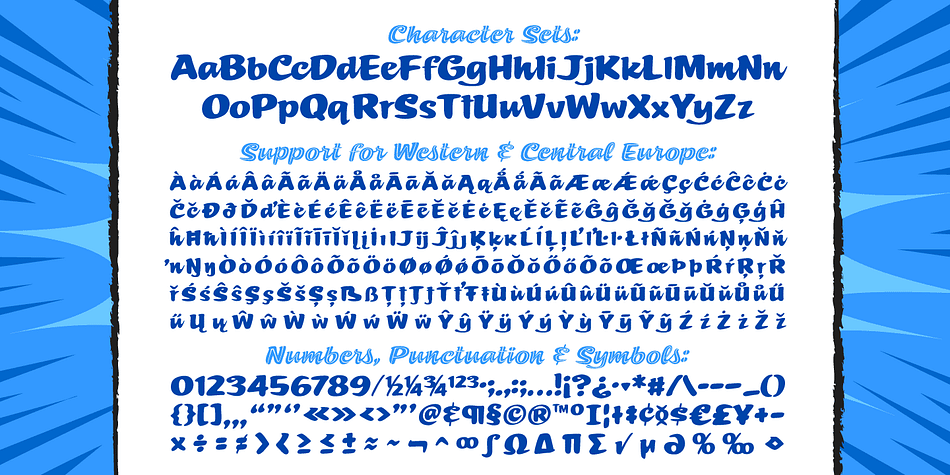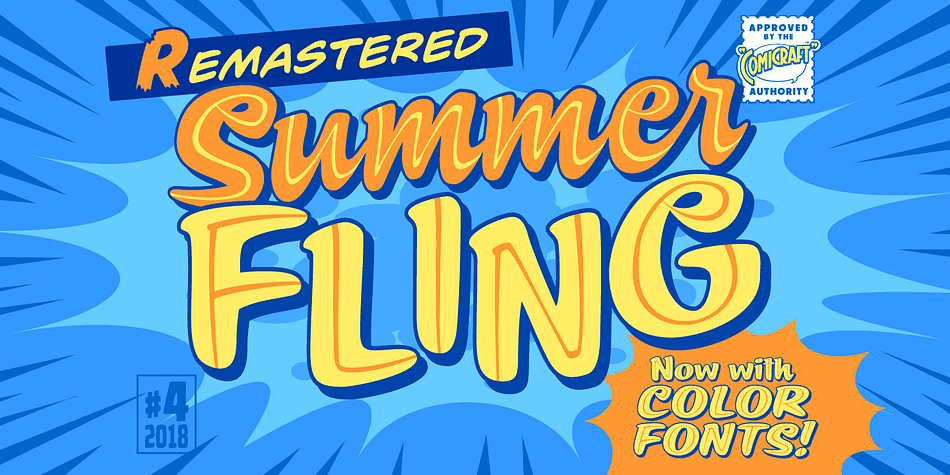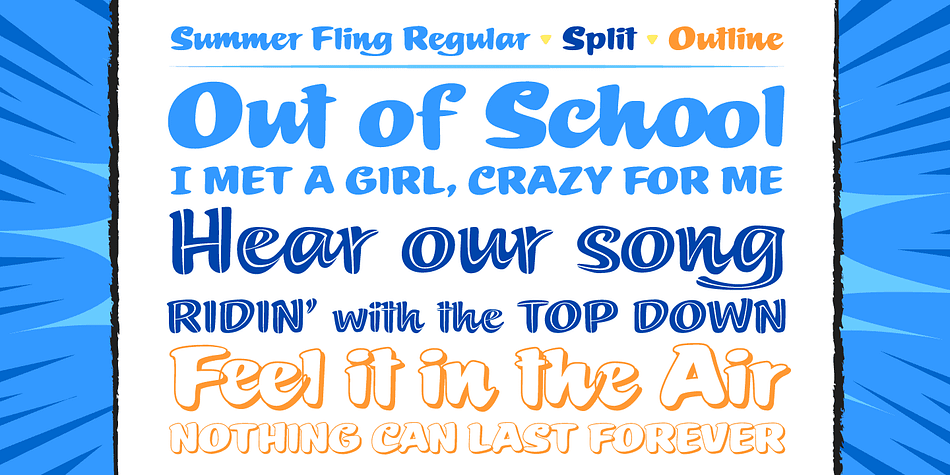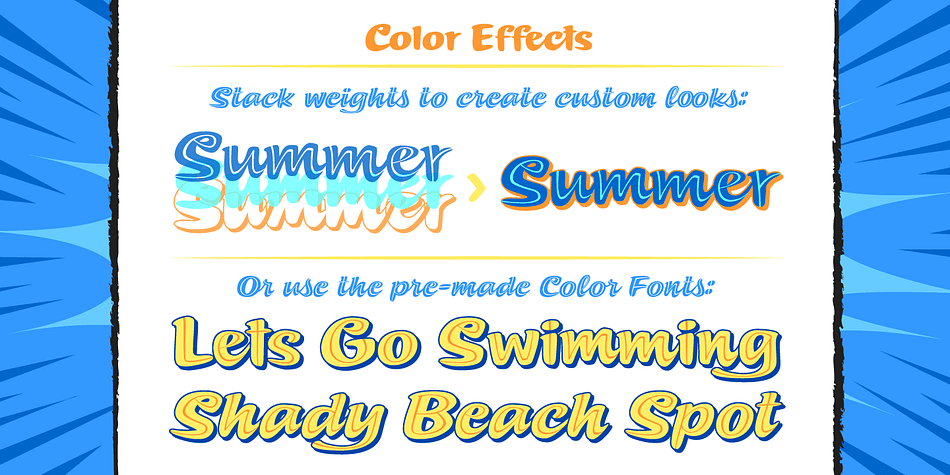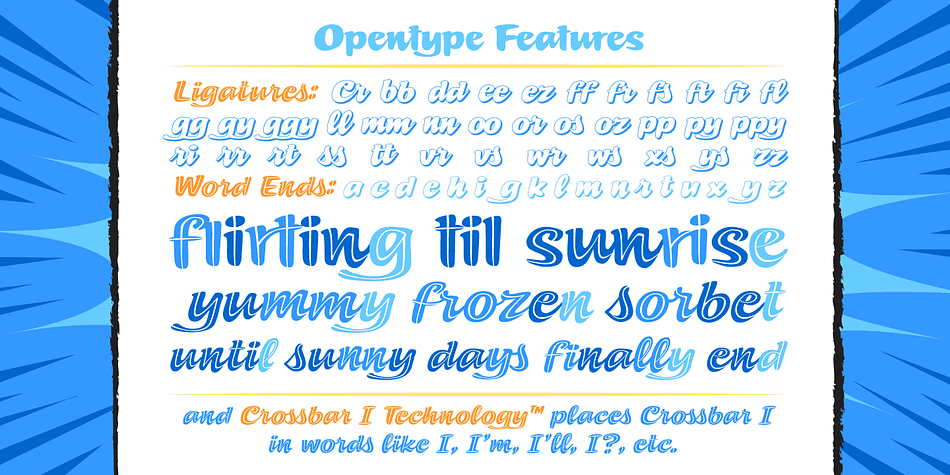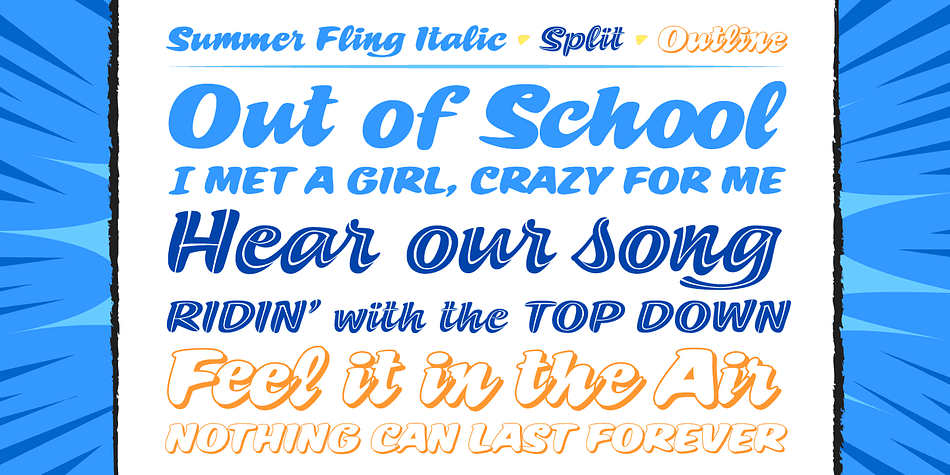
Designed by John Roshell, Summer Fling is a script font family. This typeface has four styles and was published by Comicraft.
Spring has Sprung! The Fling has Flung — and all that will be left after the inevitable Split is a fluttering in your heart, a blushful remembrance of lost love, an aching heart full of excitement and a strange sense of regret.
As you read and re-read Shakespeare’s sonnets to make sense of the swirling waters of your affectations, consider this font as the perfect headline for the Summer Blockbuster Romance you’re sure to pen in the warm, wine-soaked evenings ahead of you.